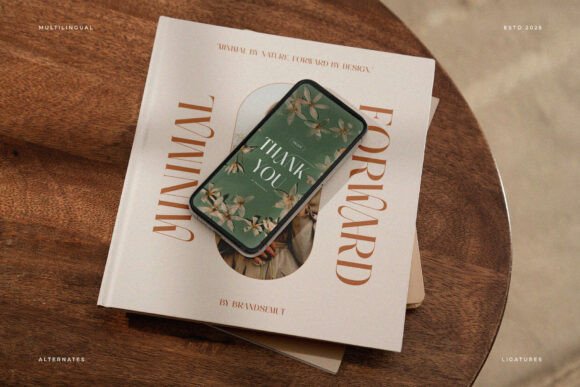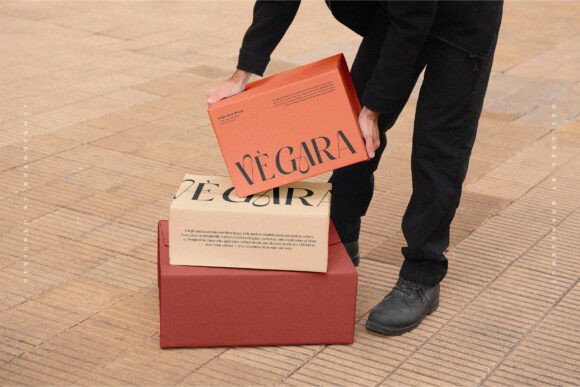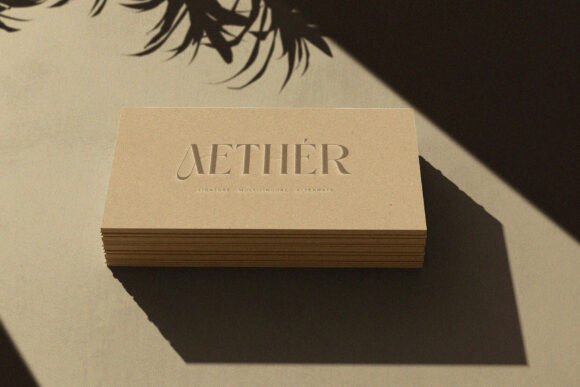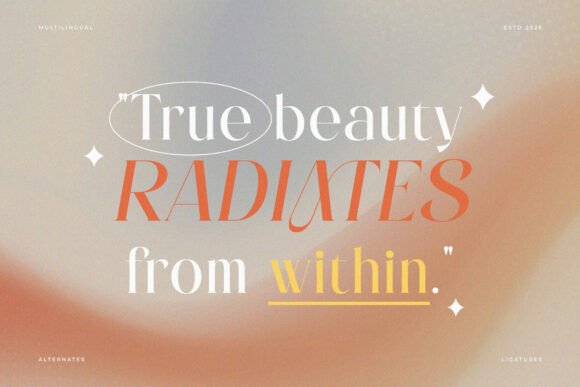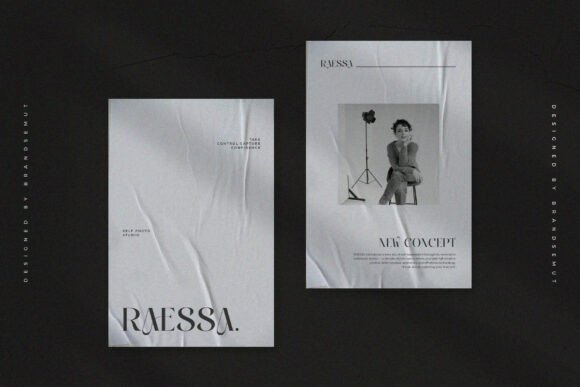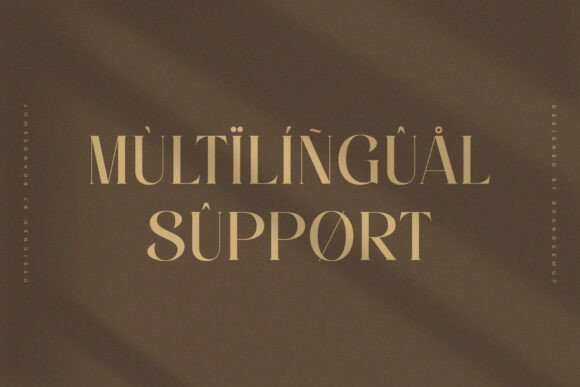
Introduction to Migase Font Font
Fonts play a crucial role in design, and the Migase Font font is a typeface that brings both character and versatility to any project. Whether you’re working on a branding project, a website, or a print design, the Migase Font font offers a unique style that can elevate your work.
Migase is a refined and elegant modern display serif font designed to elevate your visual identity with charm and class.
Featuring a full set of uppercase and lowercase letters, Migase combines graceful curves, strong serifs, and a contemporary high-contrast style — making it the perfect choice for branding, editorial design, jewelry logos, wedding invitations, and fashion packaging .
The Migase Font font is more than just a typeface – it’s a design tool that helps you communicate your message with style and clarity. Its unique character set and versatile design make it suitable for a wide range of applications, from elegant invitations to bold headlines.
With its carefully crafted letterforms and balanced proportions, the Migase Font font ensures readability and visual appeal across all mediums.
The Migase Font font stands out with its unique design, exceptional readability, and versatility across various design applications.